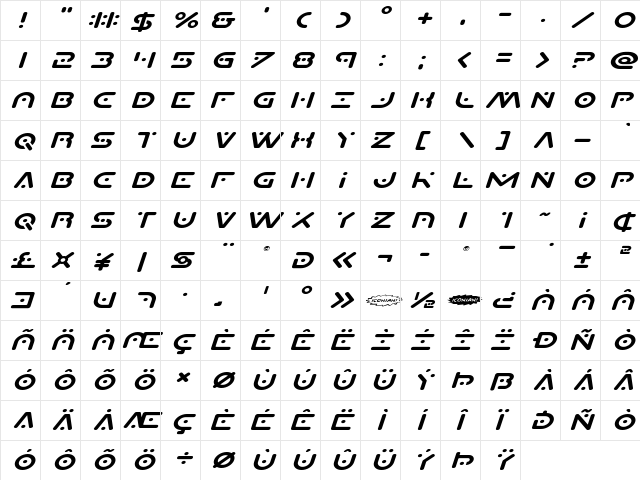
Planet X Expanded Italic Expanded Italic
Design Context for Planet X Expanded Italic Typeface
Planet X Expanded Italic is a composed and adaptable typeface that performs quietly and consistently across a wide range of design contexts. The dynamic lean of this cut emphasises speed and emphasis in any layout.